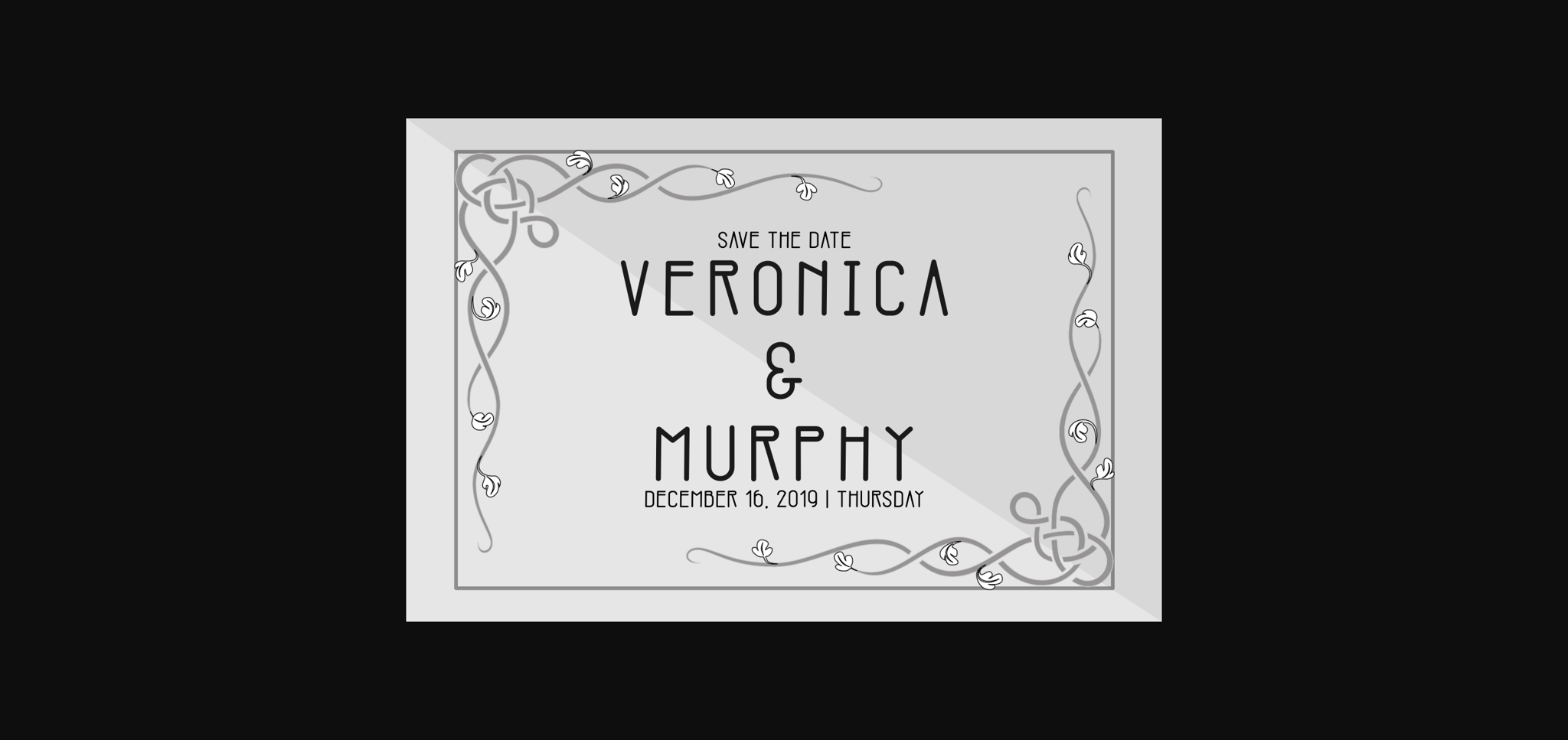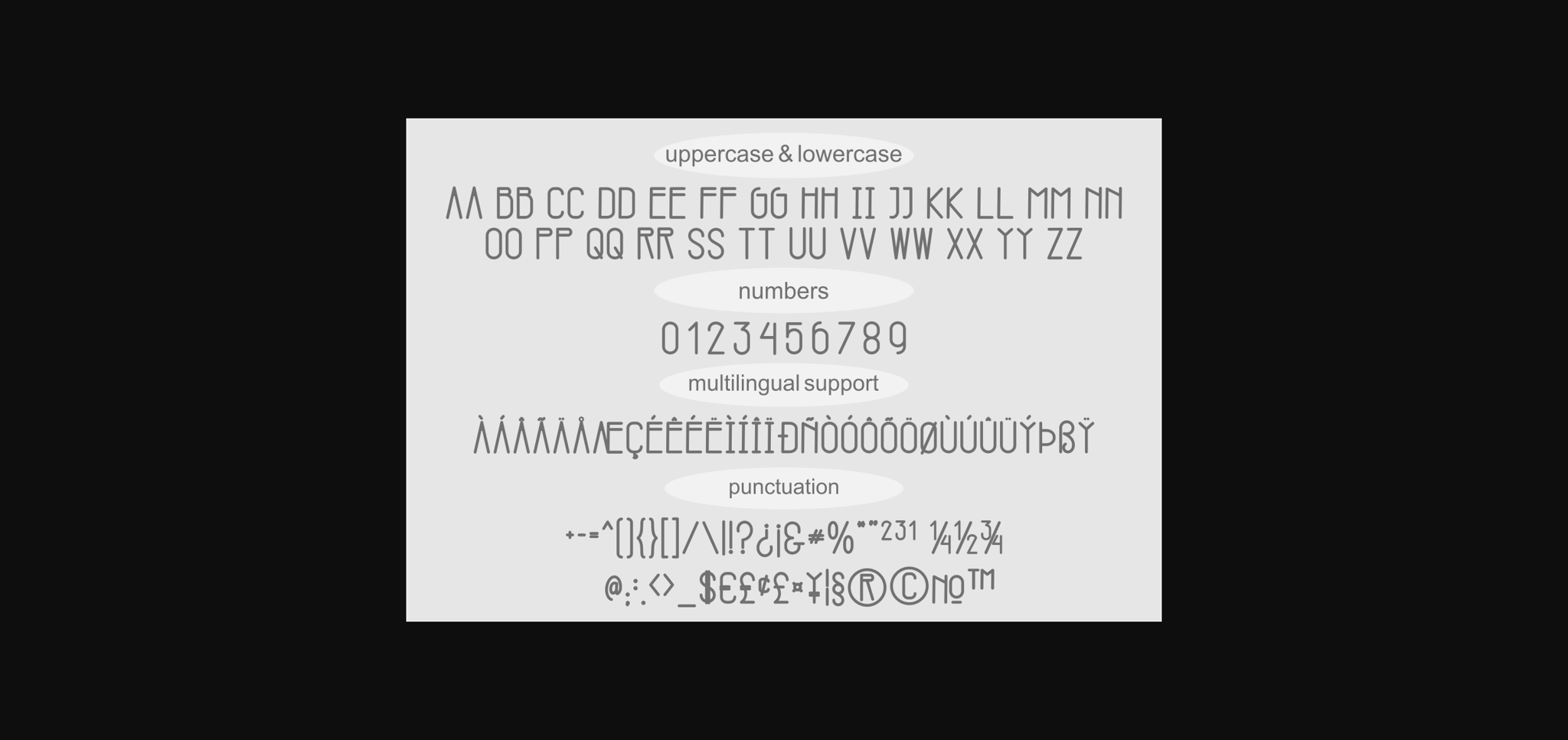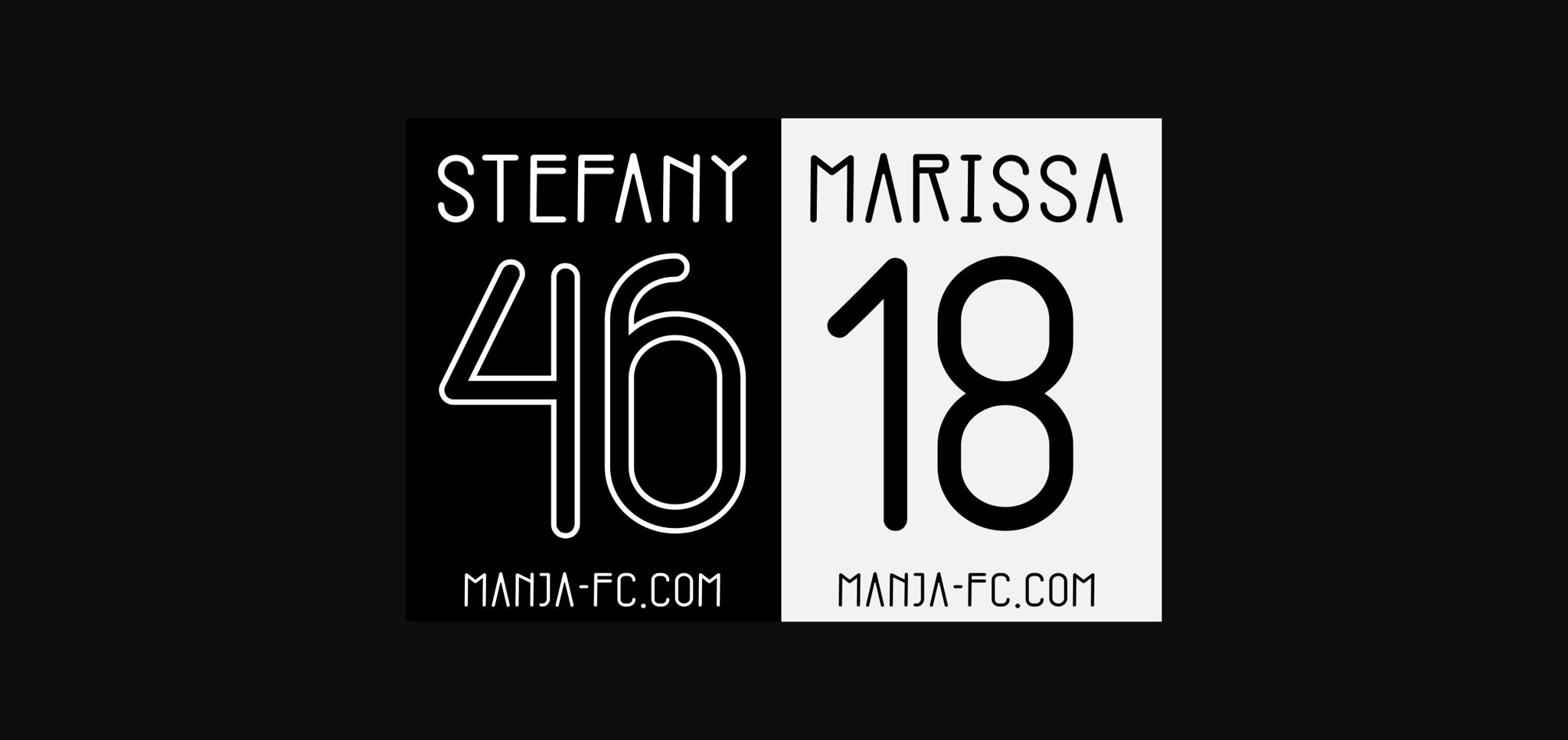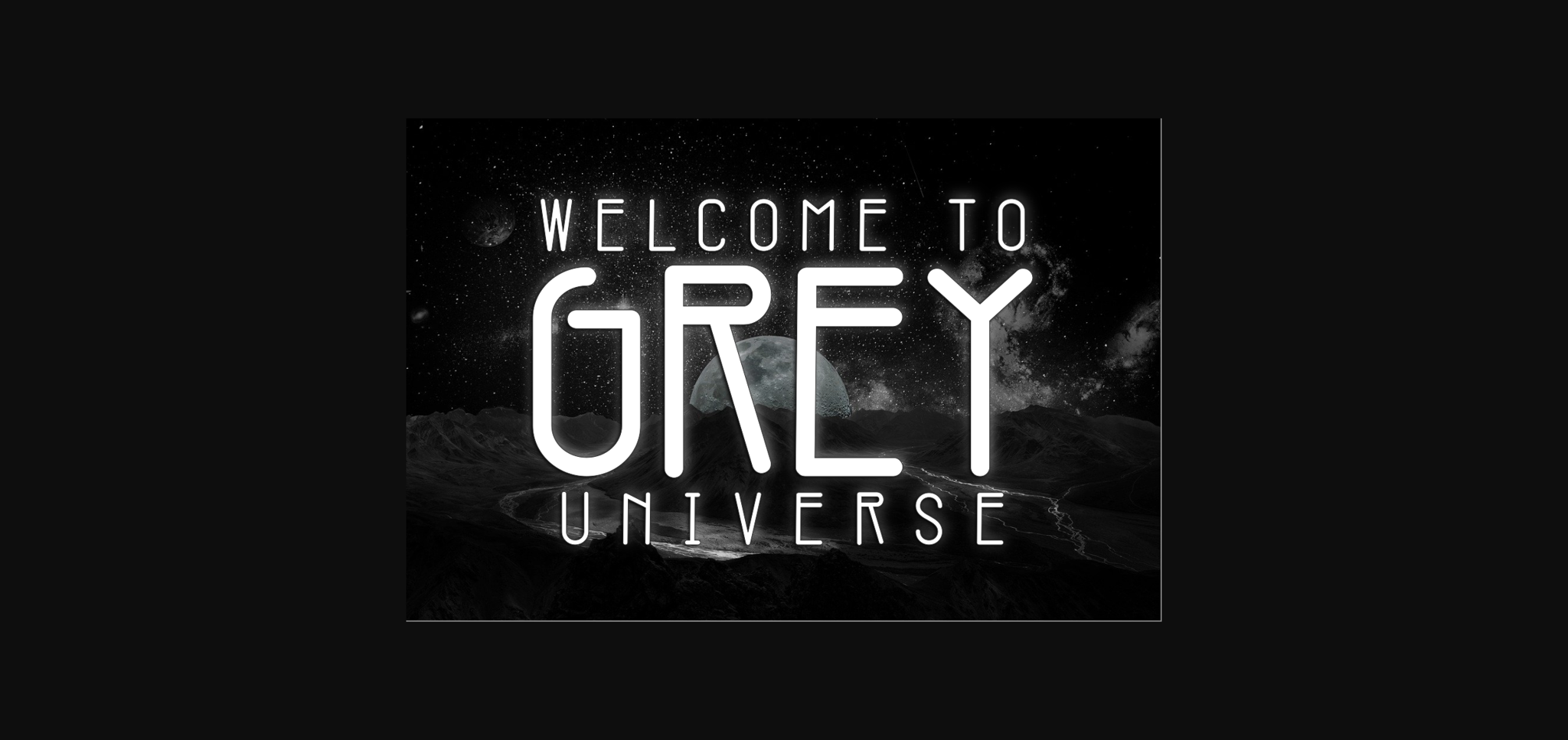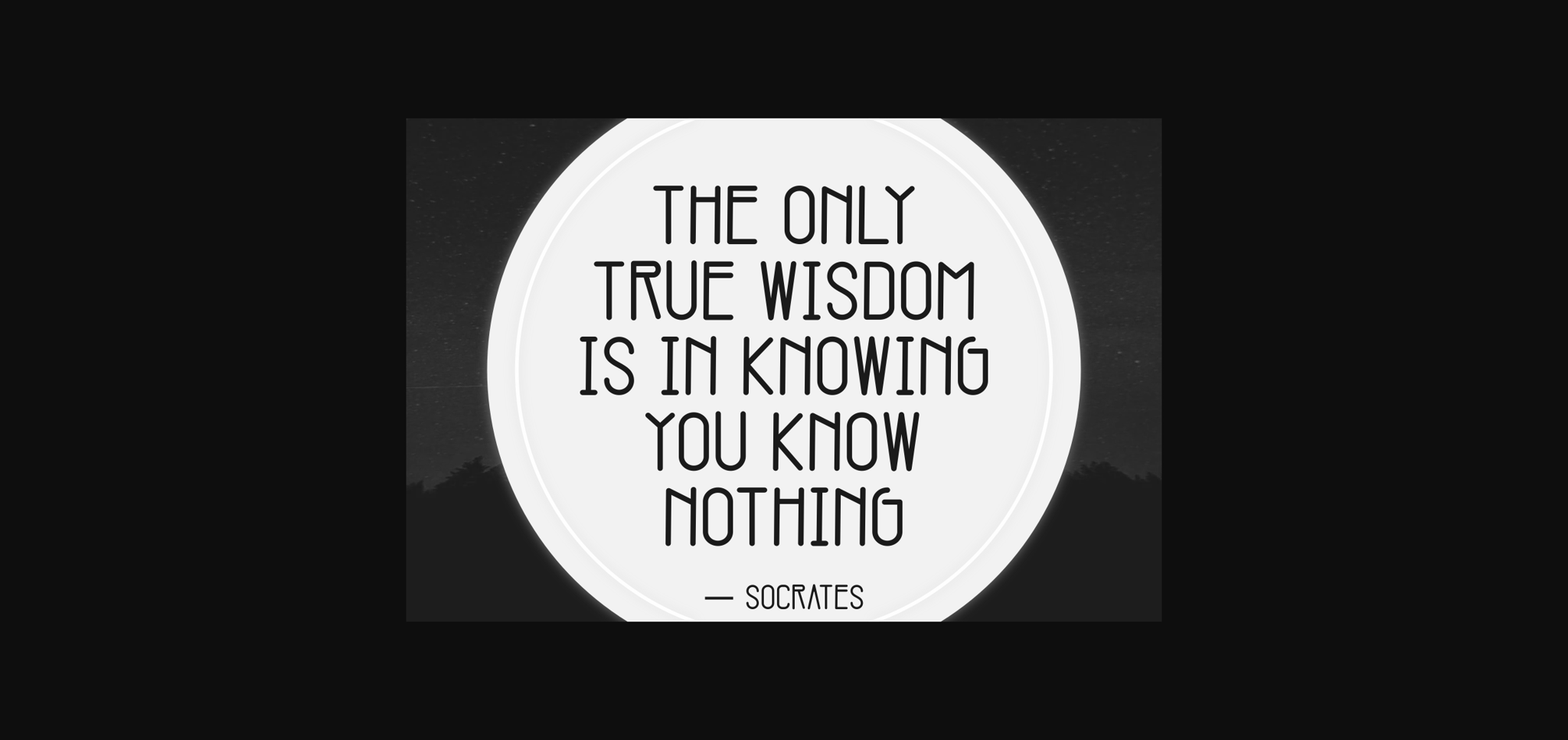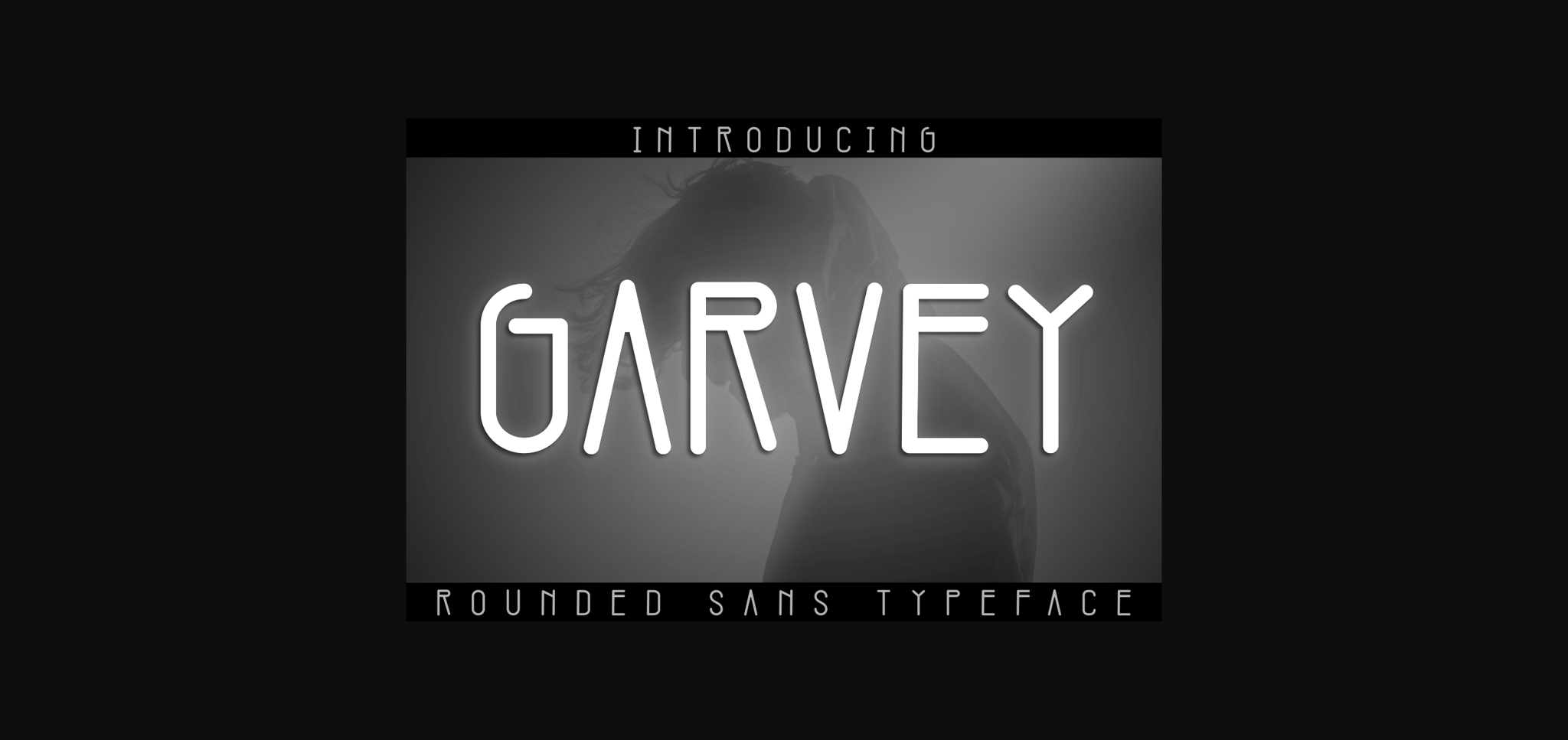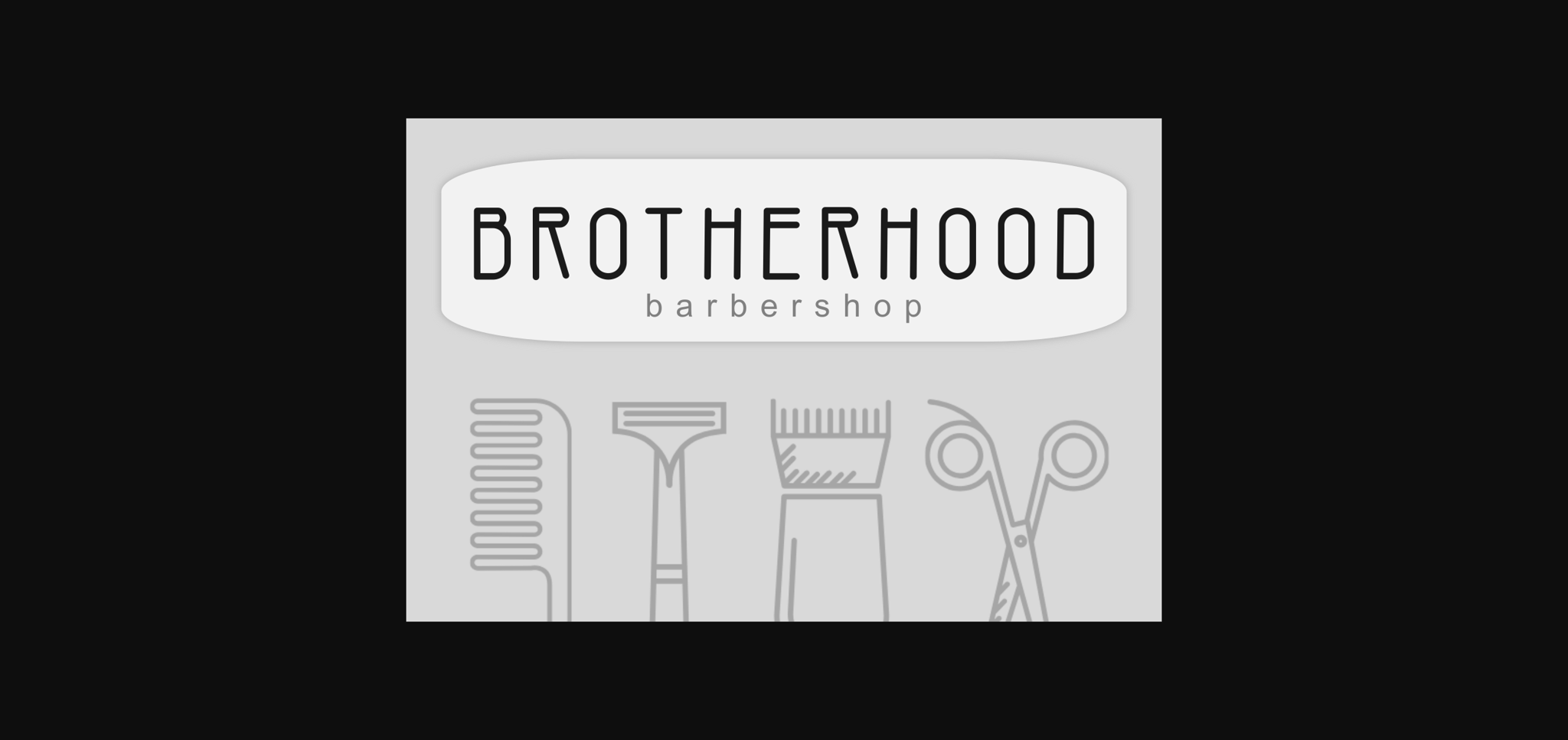
HomeSans Serif FontsGarvey Font Sans Serif Fonts Garvey Font FacebookXPinterestWhatsApp 1 of 10 ... Garvey Font Poster 2... Garvey Font Poster 3... Garvey Font Poster 4... Garvey Font Poster 5... Garvey Font Poster 6... Garvey Font Poster 7... Garvey Font Poster 8... Garvey Font Poster 9... Garvey Font Poster 10... About Garvey Font Garvey is a minimal and authentic sans serif font. Suitable to a wide variety of designs due to its neat and simple style, Garvey has the potential to become your favorite go-to font, no matter the occasion! DOWNLOAD NOW People also explored West Byanetta Font Romusa Font Soulmate Garden Flowa Font Marema Typeface Flip Flop Font Russell Sutherland Font Bigstorm Script Font Brunch Font 269 0 TagsGarveyGarvey Font Previous articleAbro FontNext articleToday Easter Font LEAVE A REPLY Cancel reply Comment: Please enter your comment! Name:* Please enter your name here Email:* You have entered an incorrect email address! Please enter your email address here Website: Save my name, email, and website in this browser for the next time I comment. Personal Use Free Wondery Personal Use Free Read more about this font Lixdu Personal Use Free Read more about this font Anti Personal Use Free Read more about this font Mike Ferrari 16017 Personal Use Free Read more about this font BLOG How to Cut Any Font on Cricut: Convert a Font to SVG (Free) Turn any font into a clean SVG so it cuts crisp on Cricut - a quick 3-step workflow using a free font-to-SVG tool. 5 Fonts That Will Dominate Design Trends in 2026 Fonts That Capture the Spirit of New York City Best Fonts for T-Shirt Design – Top 2025 Picks